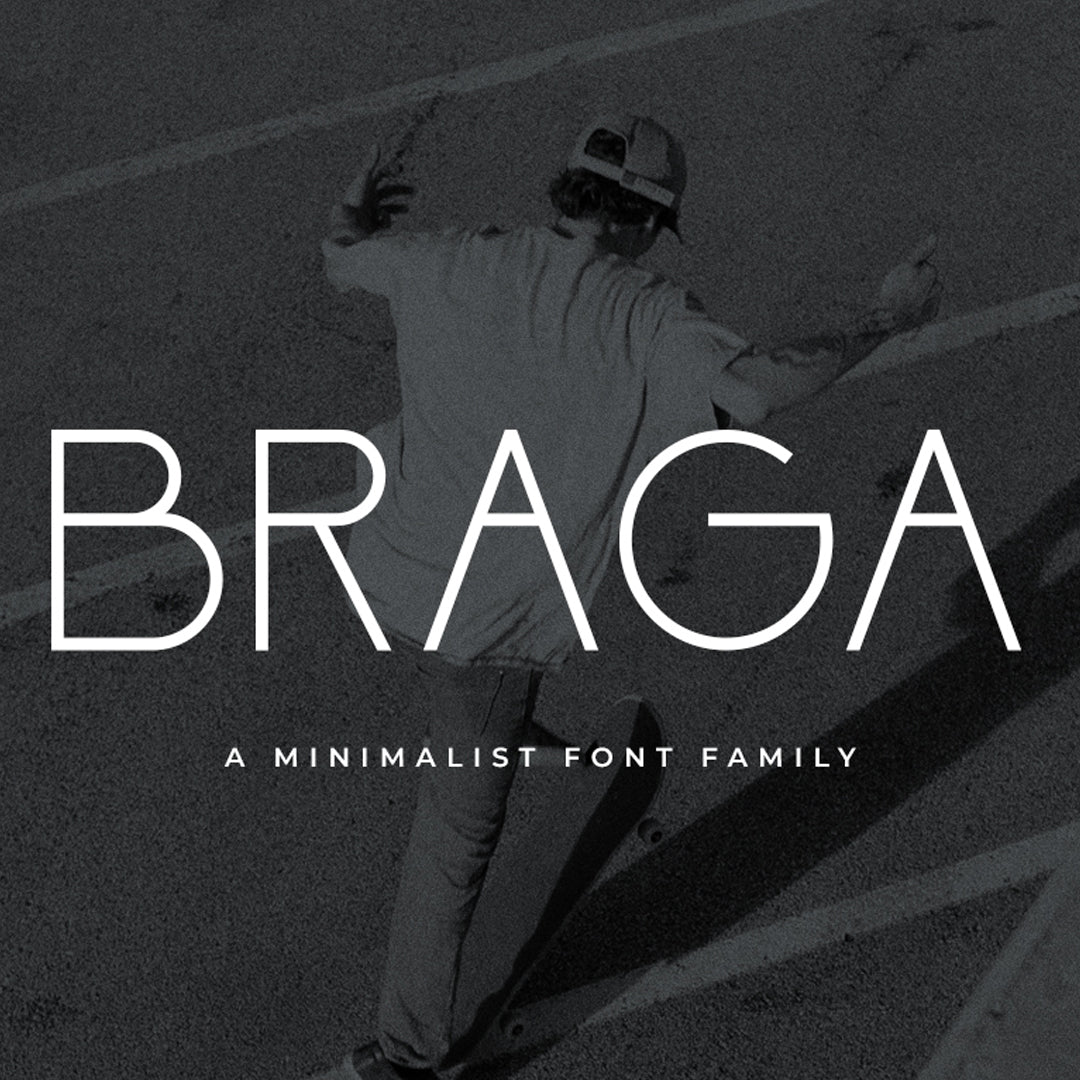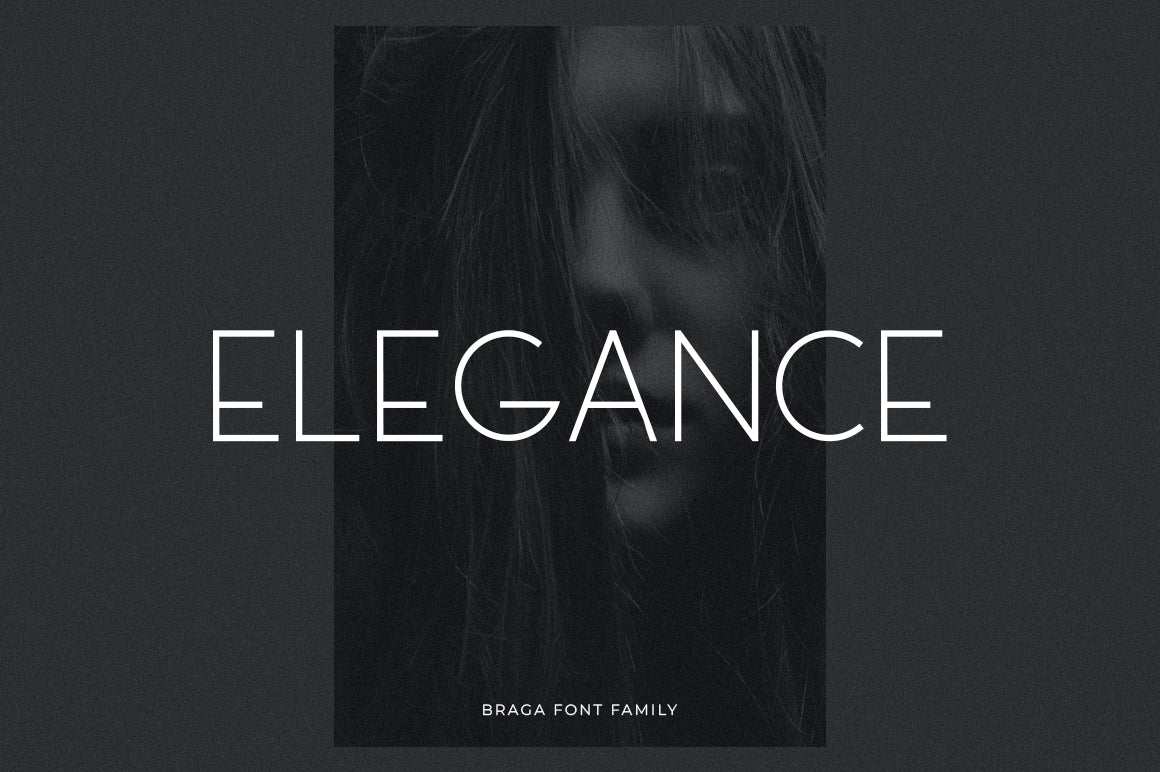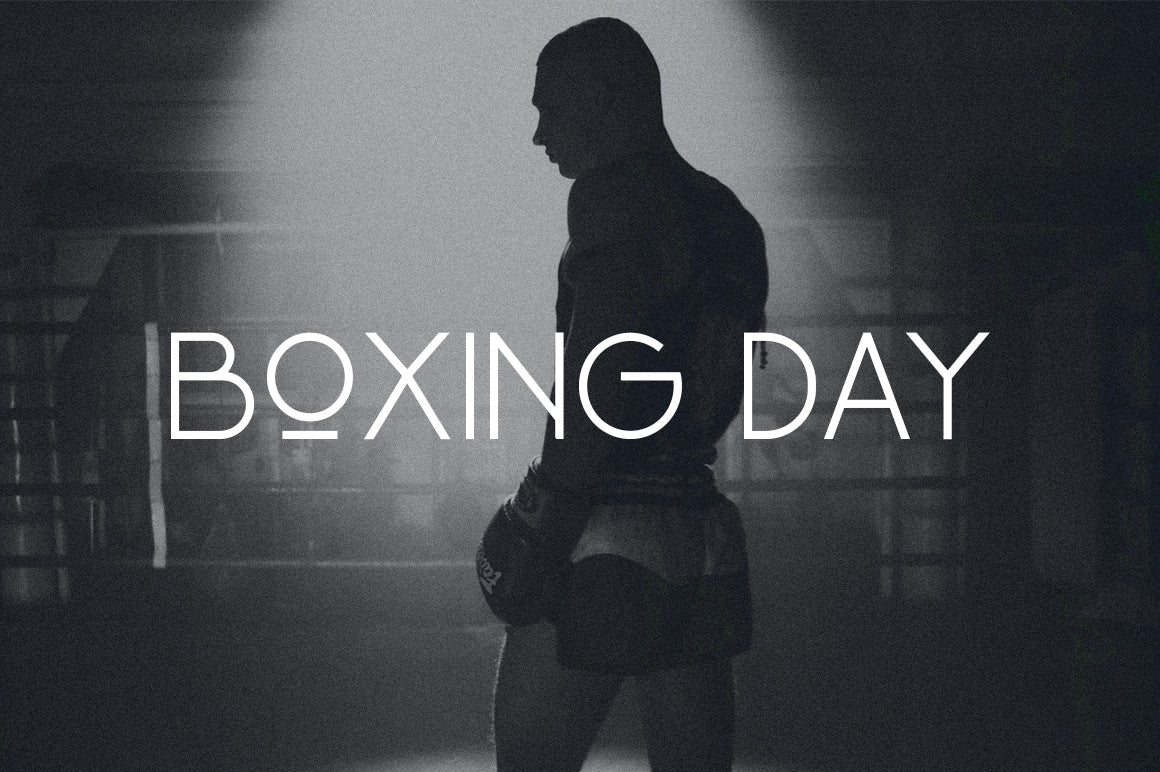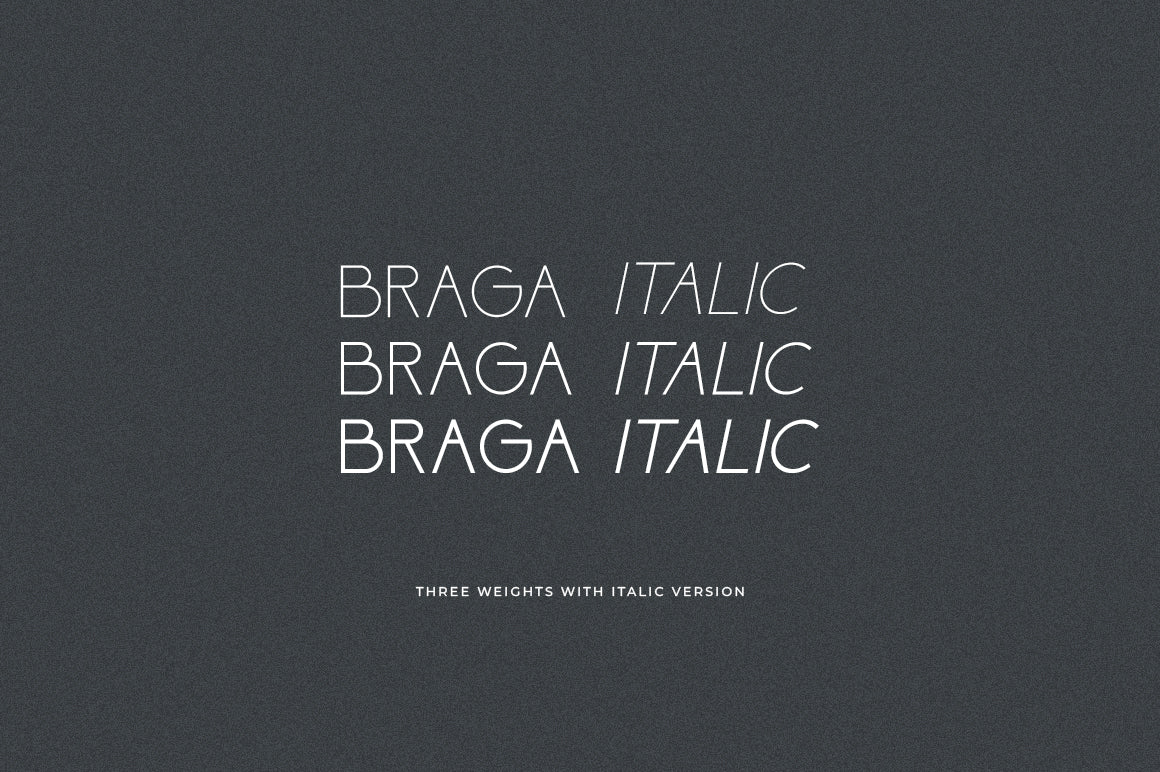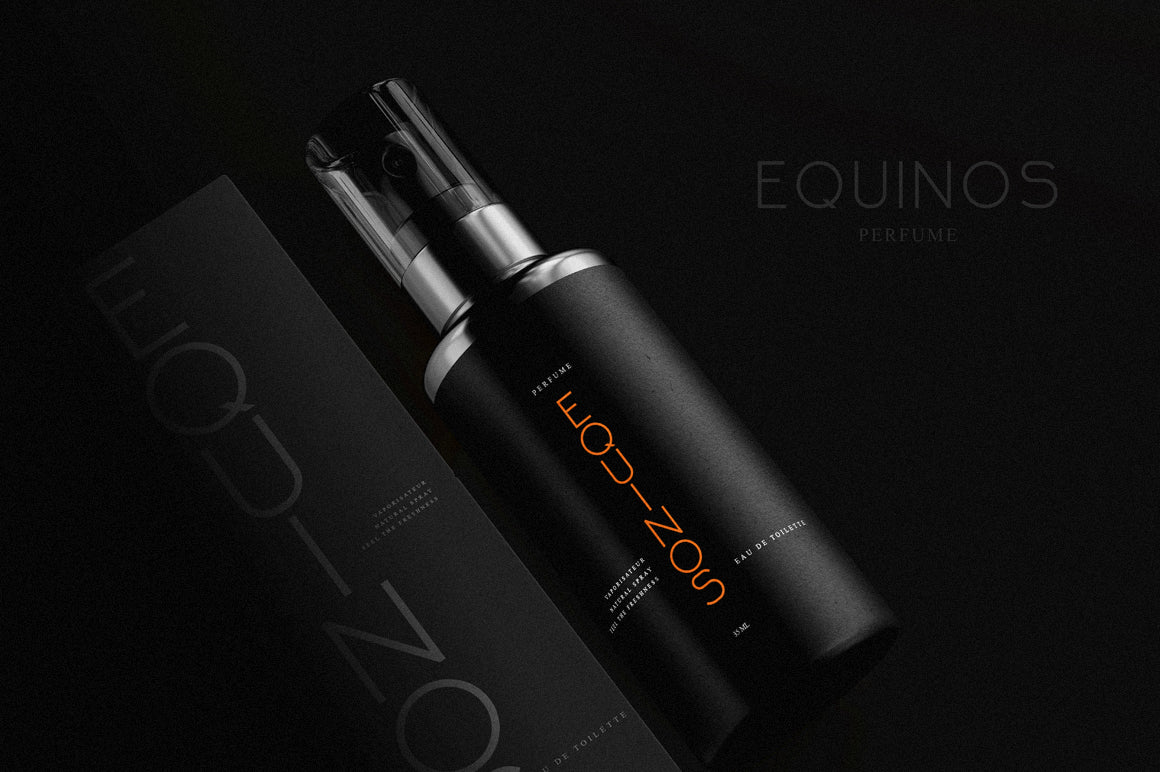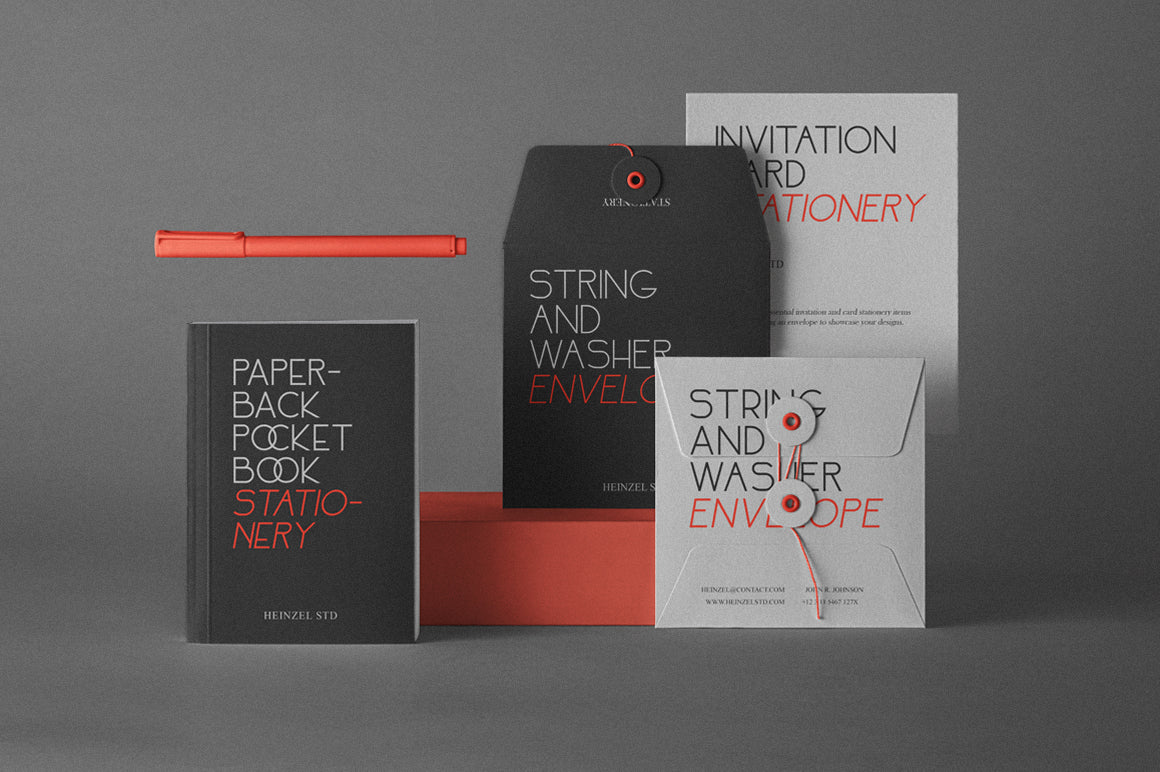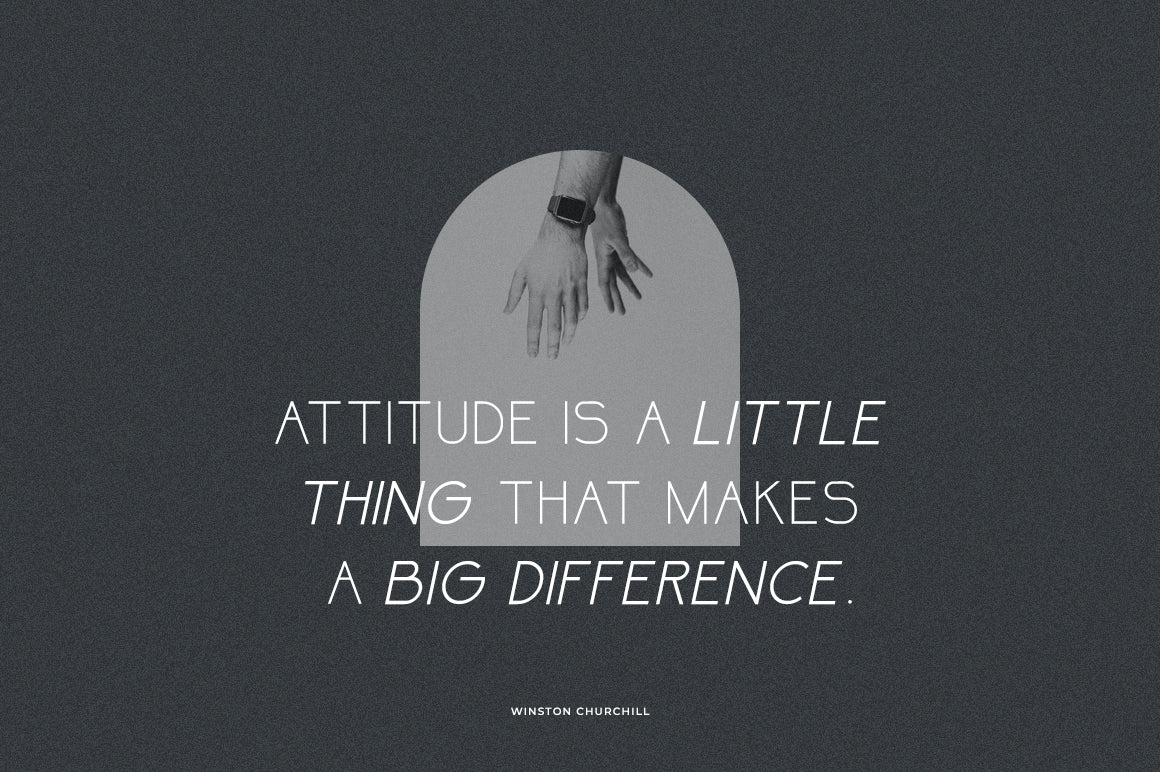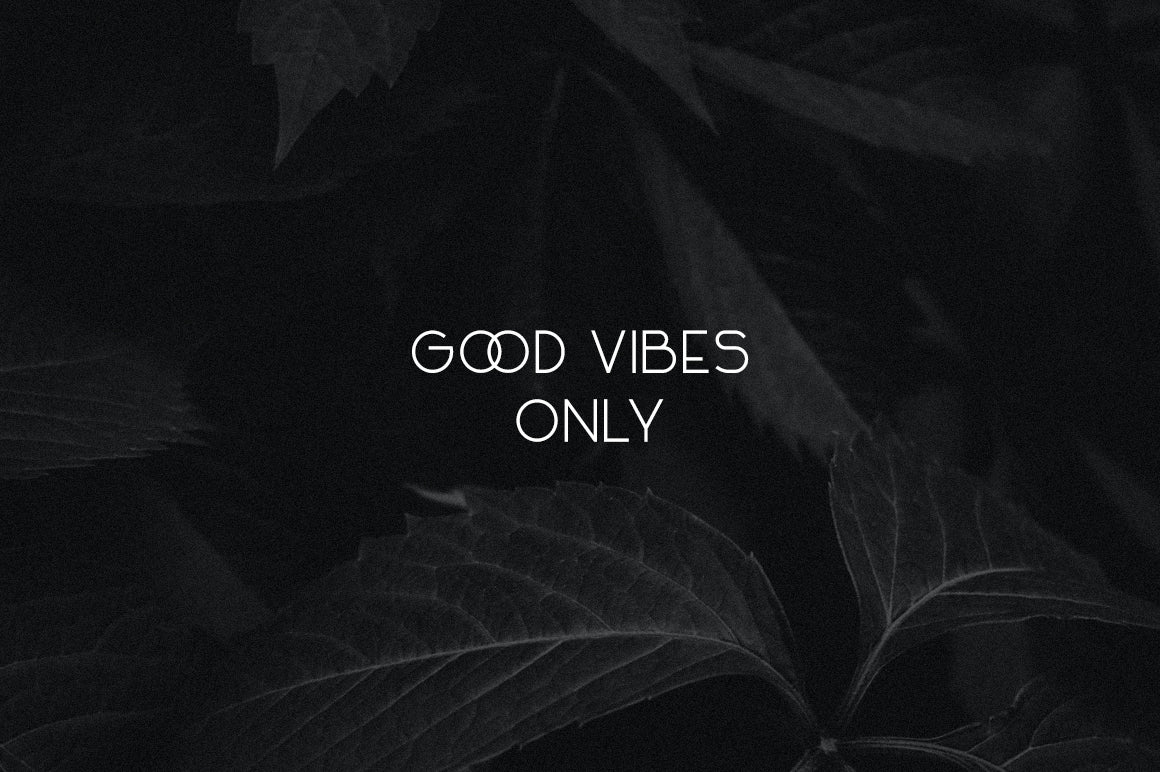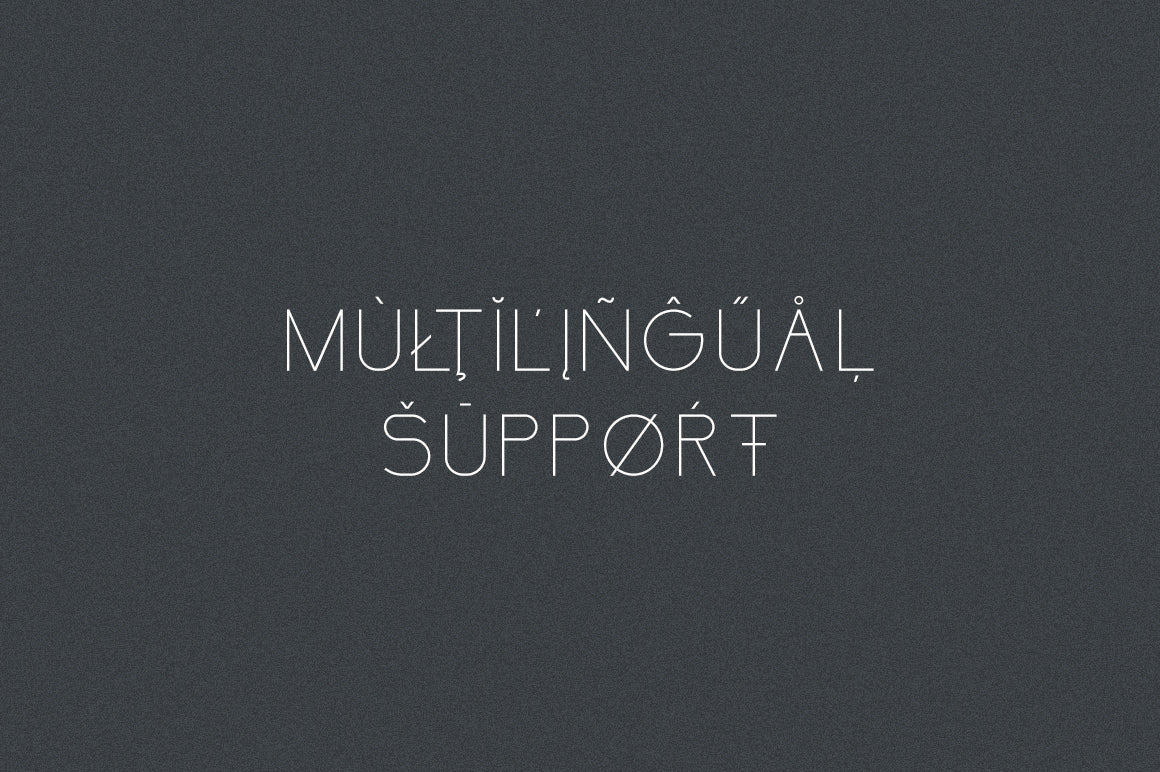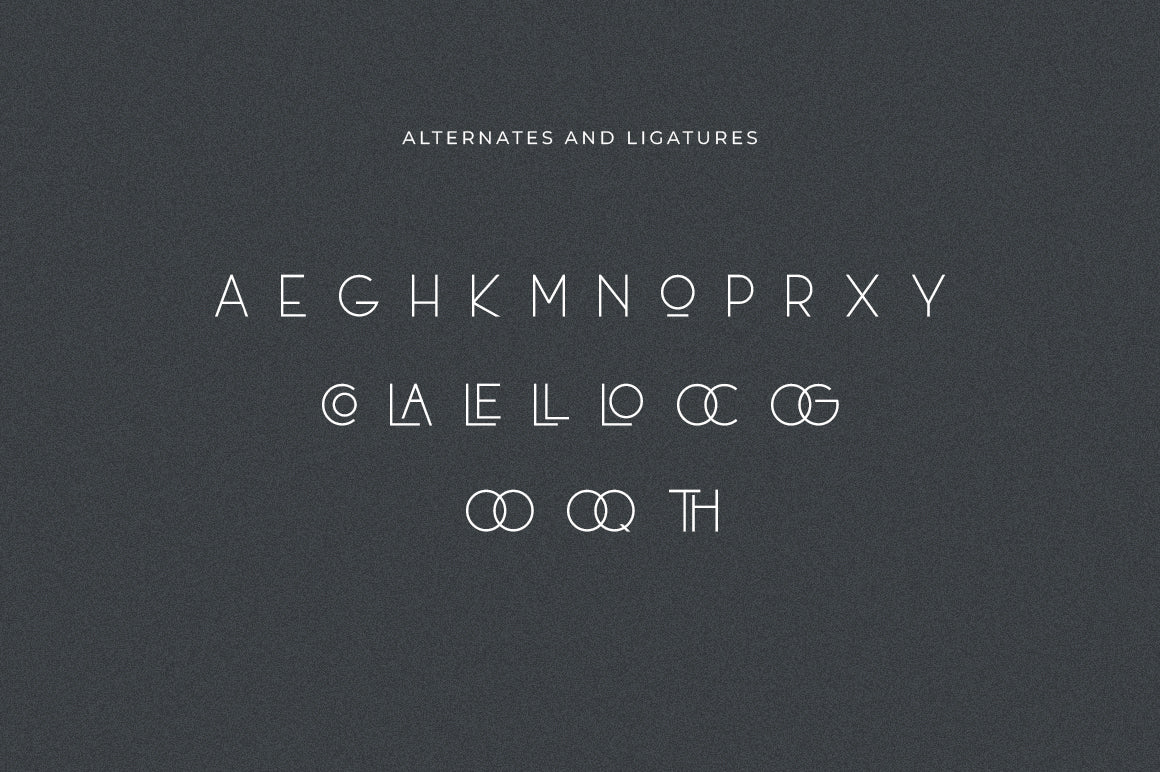
Braga Minimalist Sans Serif Font
Braga is an elegant and modern sans serif font. Fall for its ravishing style and use it to create gorgeous wedding invitations, beautiful stationary art, branding, logos, headlines, headings, magazines, eye-catching social media posts, and much more! This font is PUA encoded which means you can access all of the amazing glyphs and ligature with ease!
Braga is a sans serif font that is PUA encoded, providing access to its full set of glyphs and ligatures.